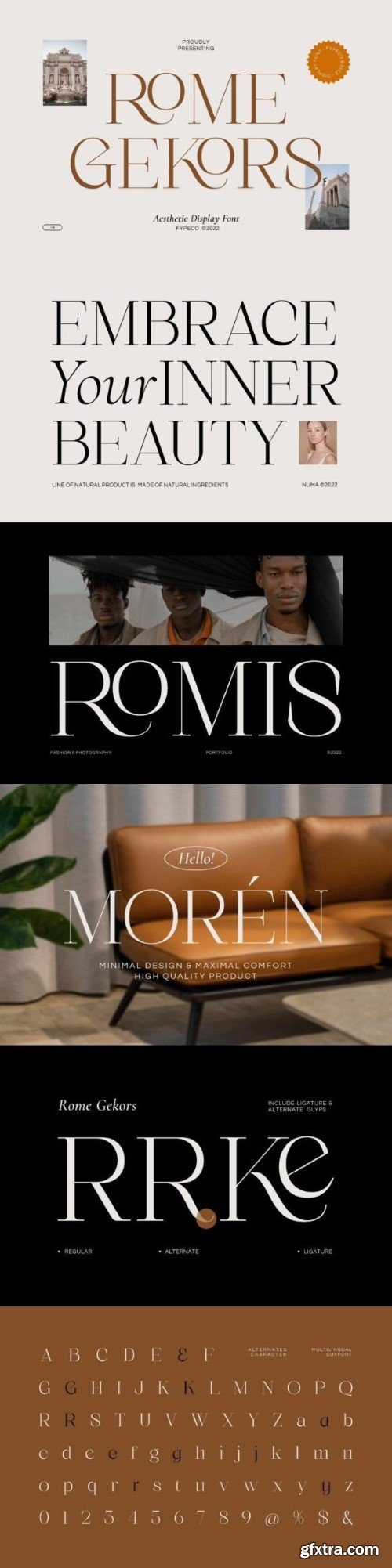
罗马·杰克尔斯字体
Rome Gekors is an aesthetic and modern serif font with alternatives and ligatures. Its stylish and modern design gives it an elegant and classy feel. Perfect for stunning logos, quotes, posts, blog posts, branding projects, magazine imagery, typography, and much more.